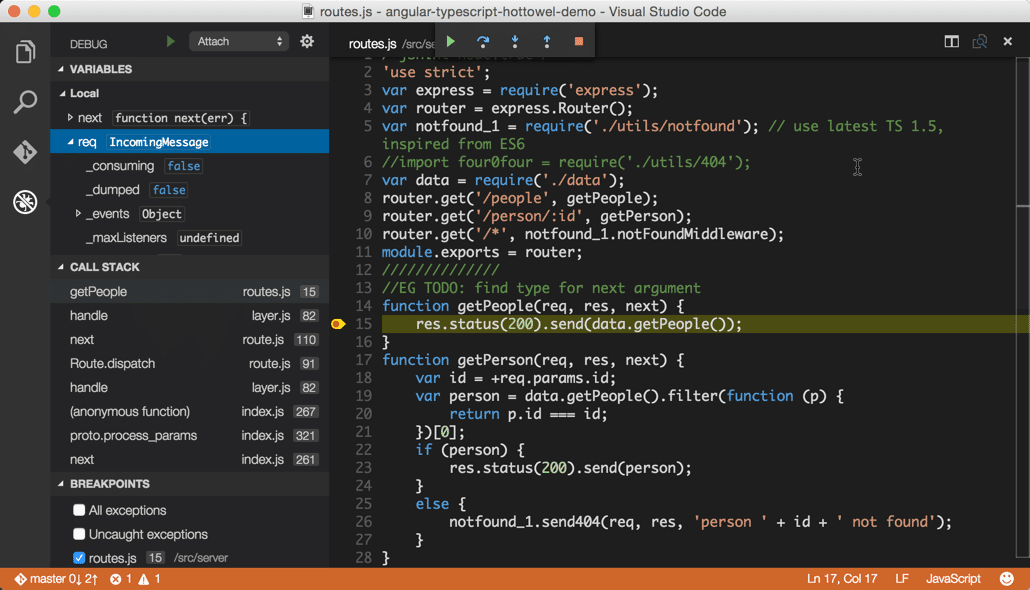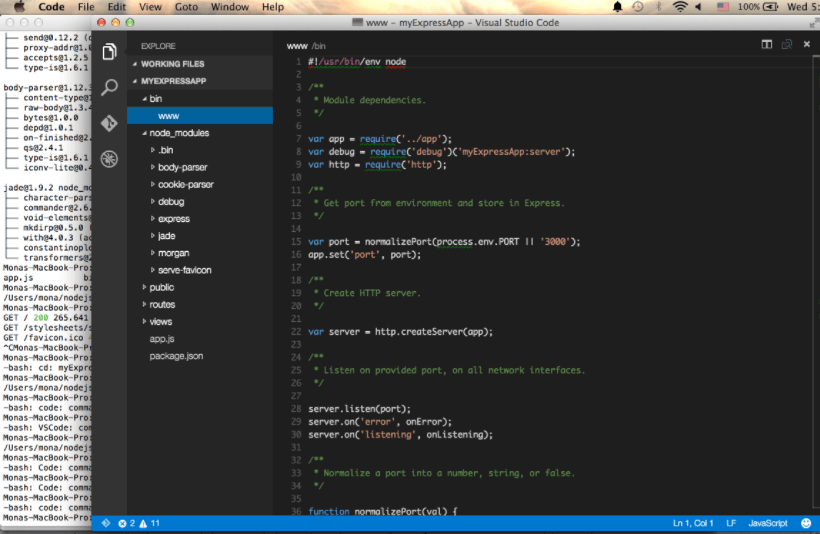
Then type the name of the font, in my case “jetbrains mono” and save the settings. Crisp, clear, and just about perfect, monoid is a programmer’s dream.
Simple Best Font For Visual Studio Code On Mac With New Ideas, Windows macos and linux and unix with a gui have a font type app that lets you add new fonts. It includes around 250 languages and 1200 glyphs.
The default fonts are different across windows, mac, and linux. How to install new font (windows) download the font from here. Cousine is a favorite programming font of mine. Being a sans serif, cousine lacks the harshness of serifs and ornate details of letters.
Every font is free to download! To accomplish this, open the external tools tab in the preferences dialog and then click add. The 8 best monospace fonts for coding. Cousine is a favorite programming font of mine. Visual Studio Code for Mac 1.26.1 中文版微软代码编辑器 苹果Mac版_注册机_安装包 Mac助理.
This font has been designed specifically to reduce fatigue and help to improve developers' productivity. The webfonts are hinted (truetype instruction set) to optimize display on the screen and are built into all commonly used web font formats with each new release. Cmd + shift + p on mac. You would go into the editor in this case would be visual studio and. 10 Best Free Text Editors for macOS 10.14.
If you miss atom’s one dark theme, then one dark pro is what you need to install on vs code. The default fonts are different across windows, mac, and linux. You have successfully installed a new font for your vscode editor. Proggy is loved in developer circles for its simple but effective look, especially for c and c++ coding. Download Visual Studio Code 0.9.2 Mac Free.